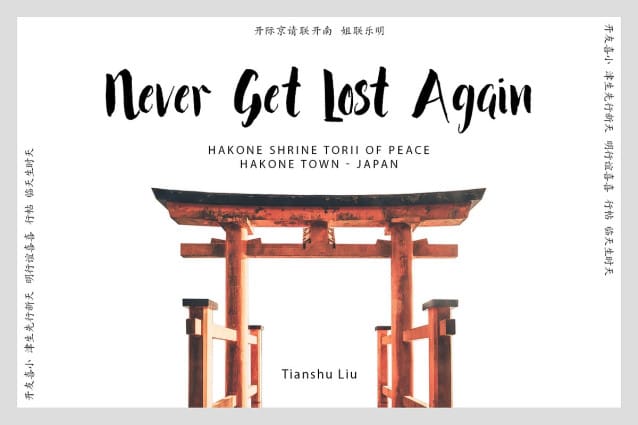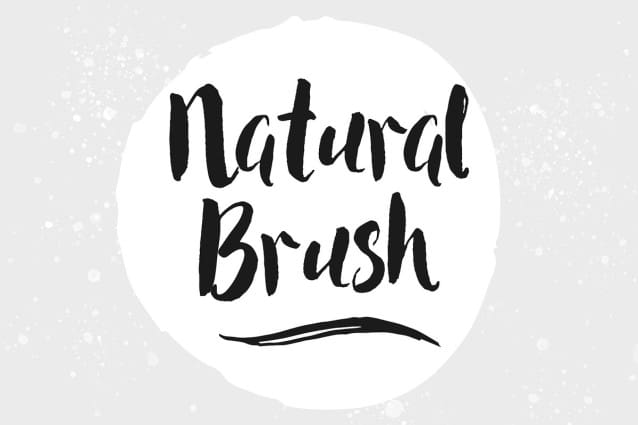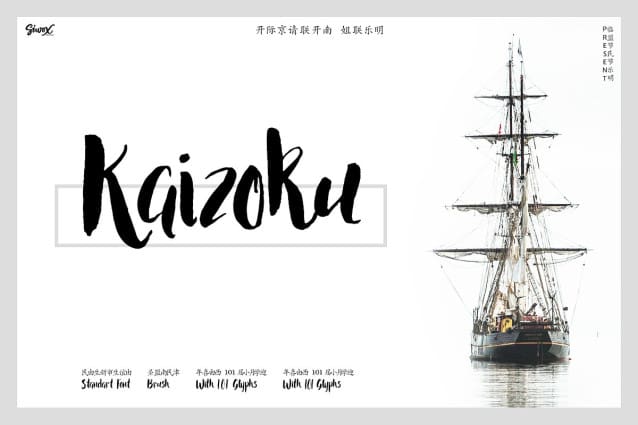
Kaizoku Brush Font
Kaizoku Brush Font is a lovely and delicate script font that exudes elegance and class. This font was particularly crafted for those who need a beautiful and refreshing look to their designs.